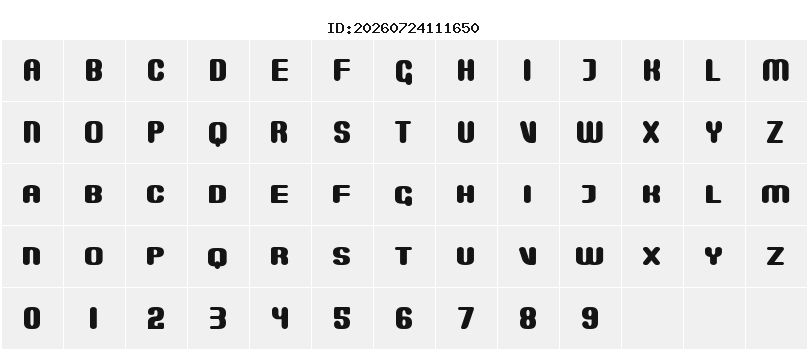
Monster Preview
• Font Name: Monster
• Full Font Name: Monster
• PostScript Name: Monster
• Designer: atrax
About Monster.ttf
Monster.ttf is a modern, elegant sans-serif font designed for ultimate readability and visual harmony. Perfect for branding, headlines, web design, and print materials.